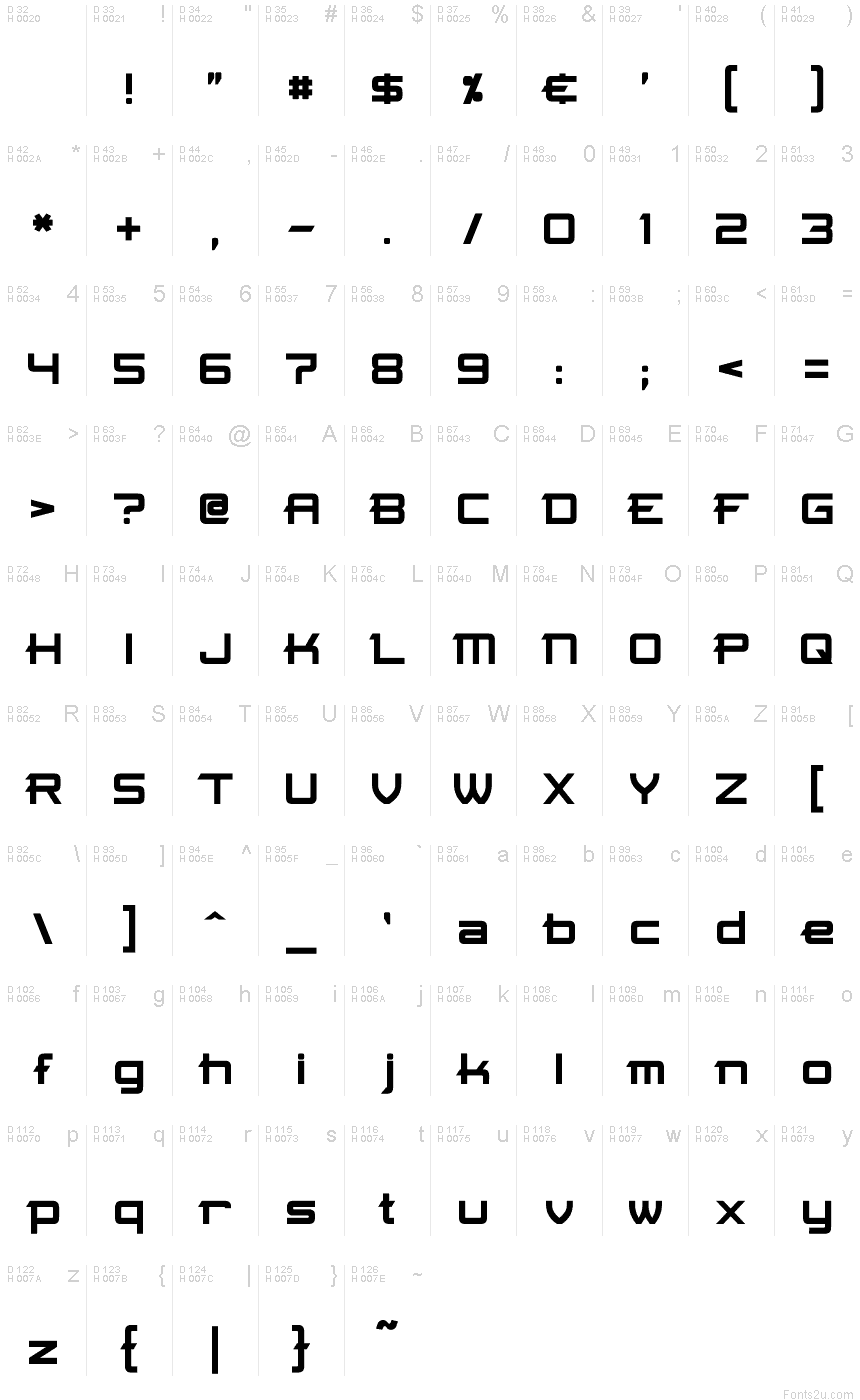
Skir by Neale Davidson is a free futuristic display font with an exceptionally wide and low-slung silhouette. Its dense strokes combine rectangular forms with softly rounded outer corners, and sharp diagonal cuts give the lettering a machine-tooled, forward-driving profile.
As a title treatment, the broad horizontal sweep can turn science-fiction posters, racing game interfaces, electronic music covers, and technology branding into something resembling a custom vehicle badge or control-panel mark, especially when the surrounding artwork shares its clipped angles and aerodynamic lines. Speed and machinery link these applications.